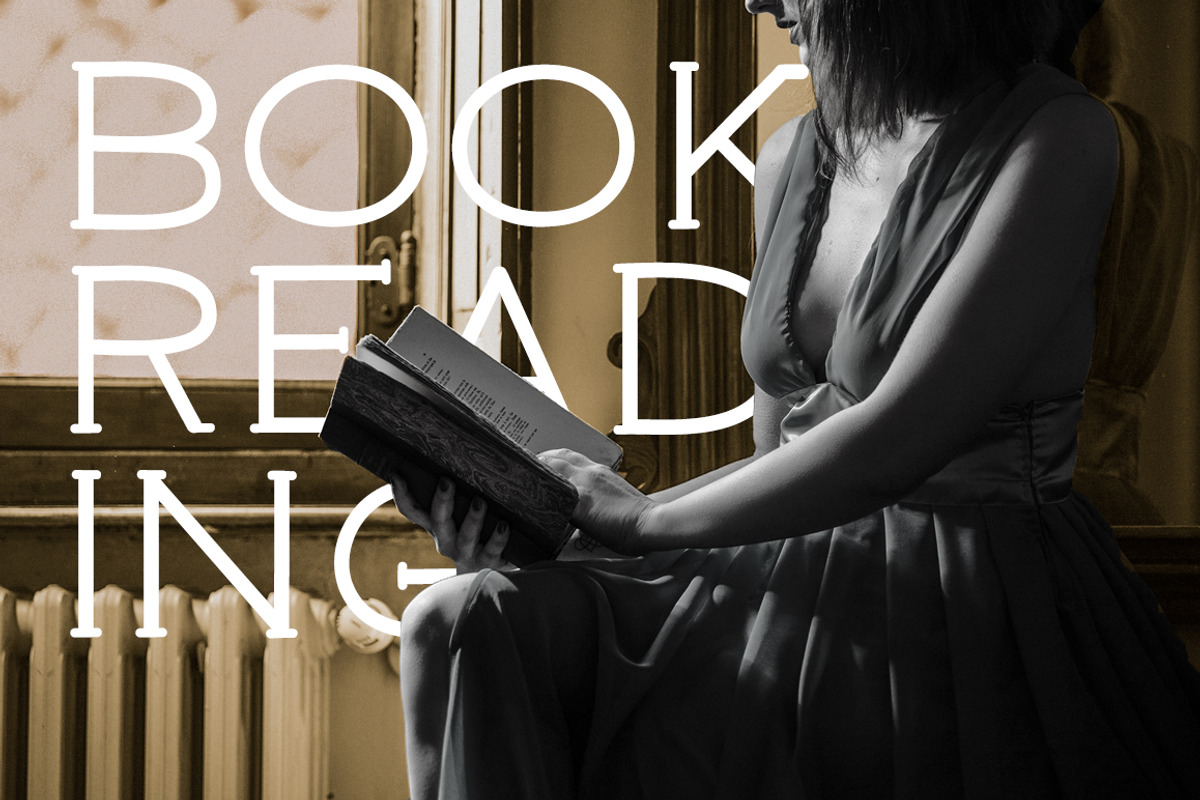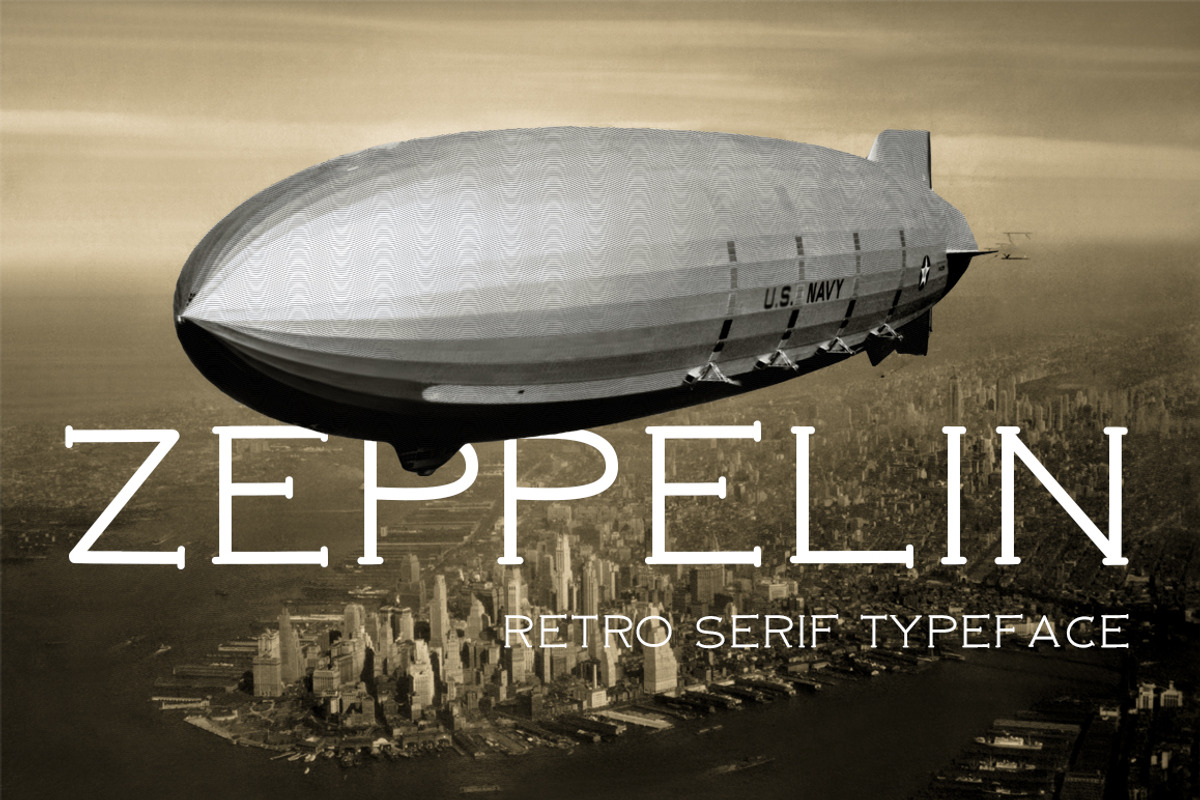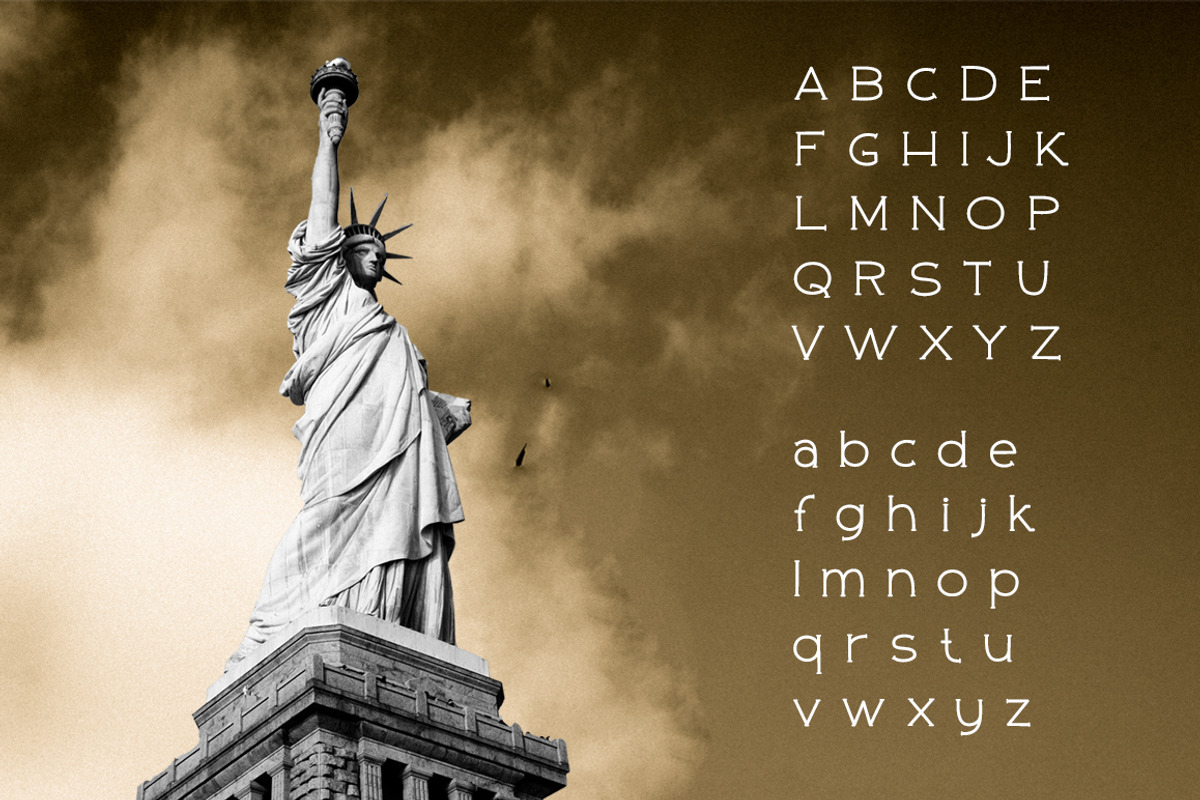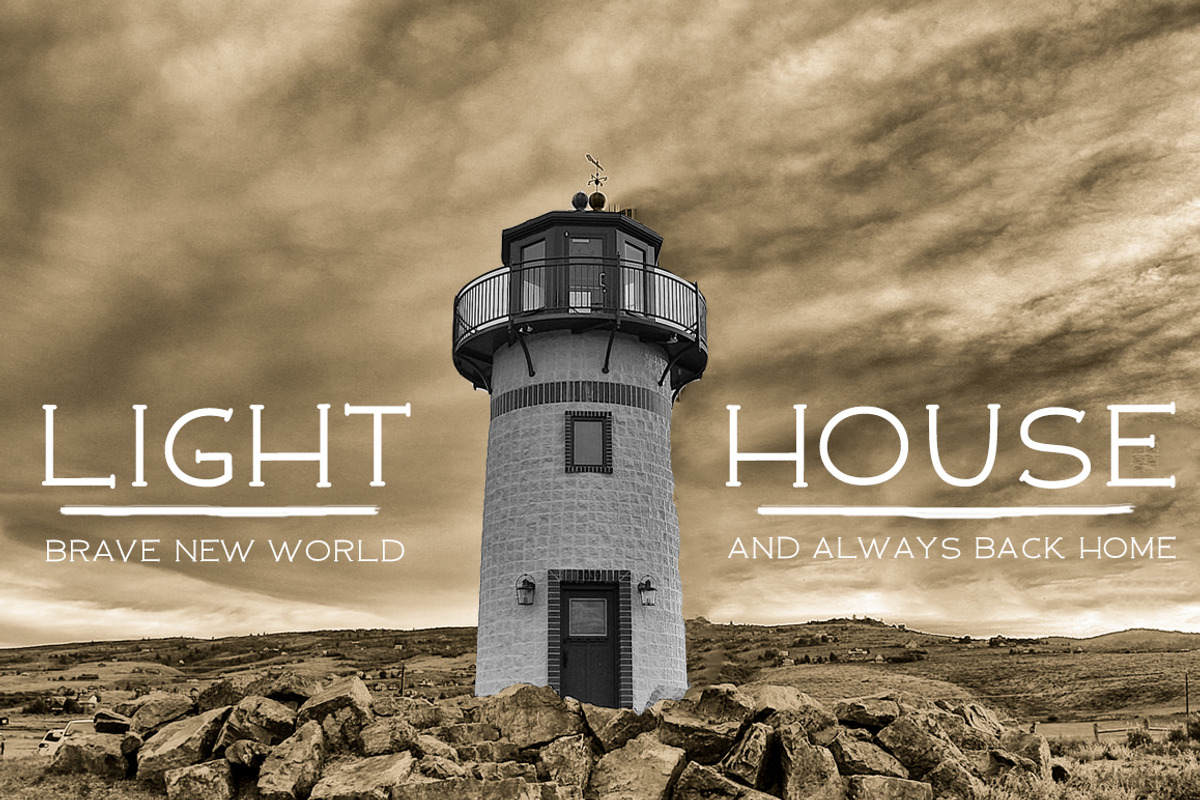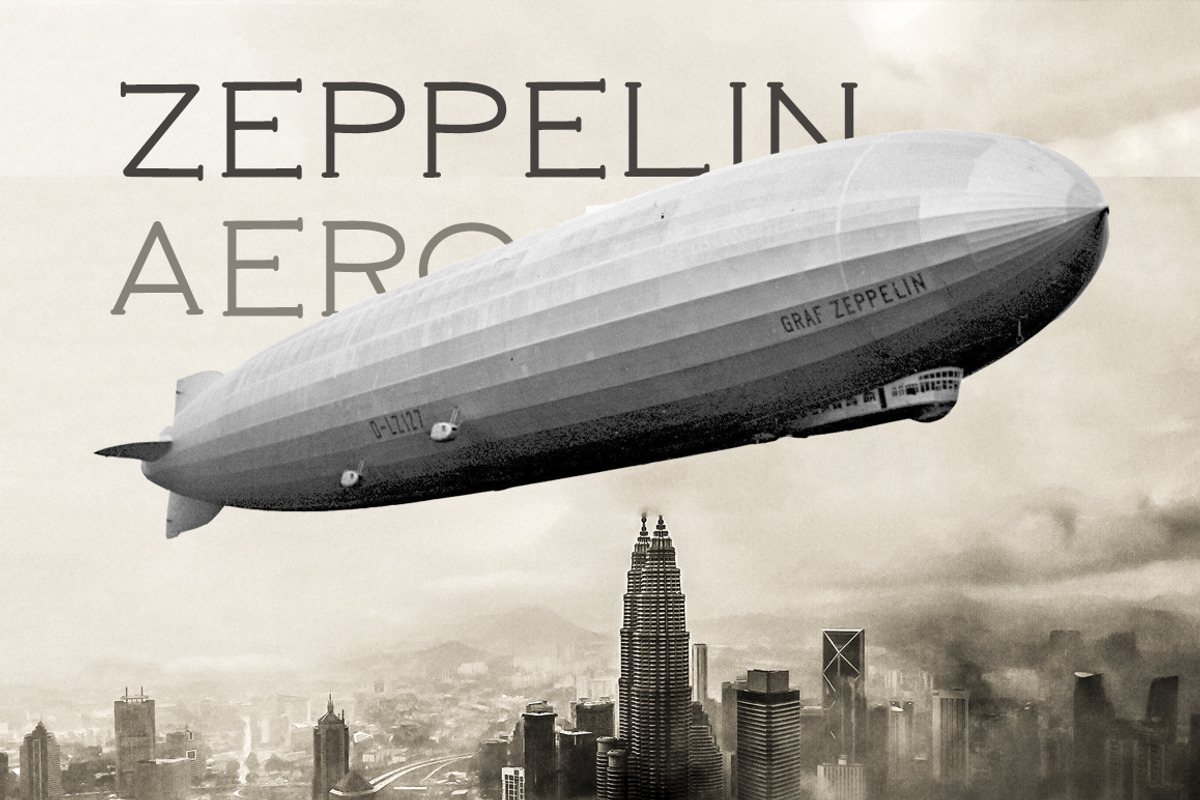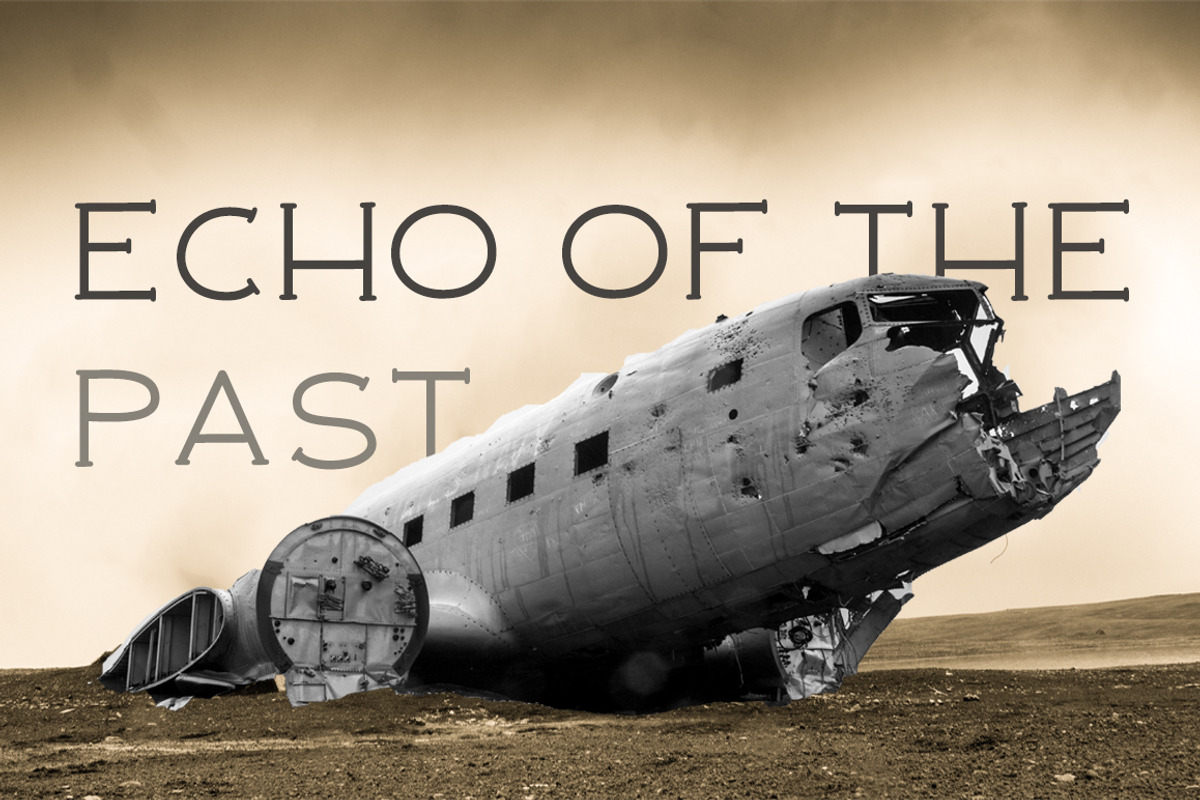
Zeppelin retro font
Zeppelin retro font by Pxlhead is a font selected for branding, posters, packaging, typography.
- Add multilingual support and new preview ★ Once airships symbolized dream of mankind to be exalted and fly under the sky.
Why Zeppelin retro font is worth a look
Zeppelin retro font by Pxlhead fits naturally into Branding, posters, packaging, typography.